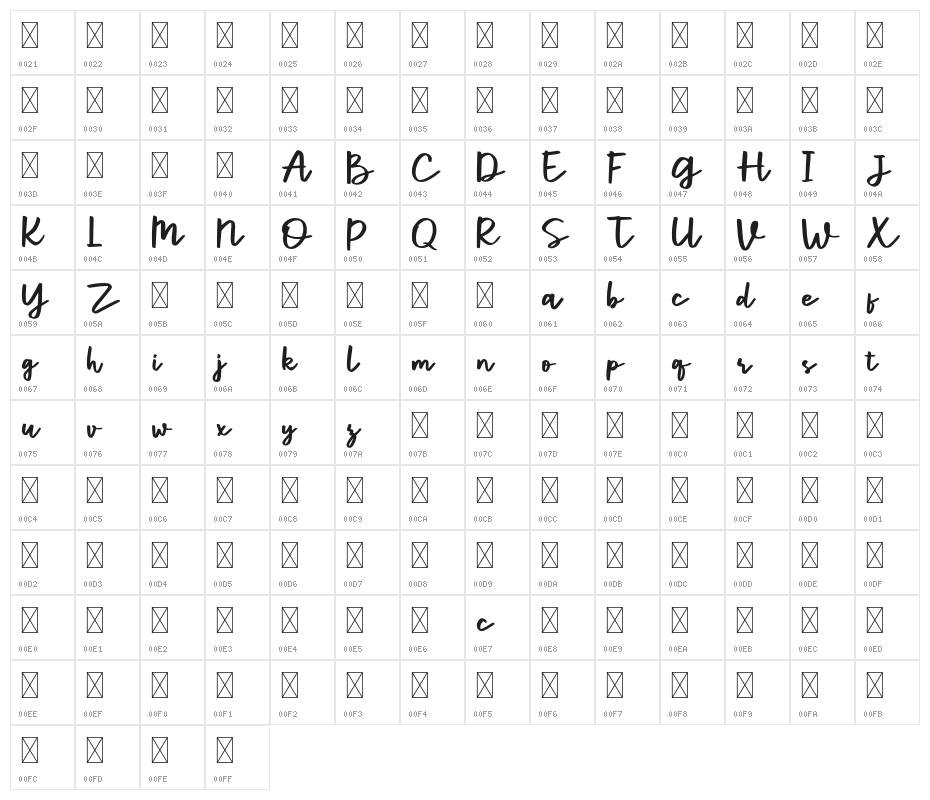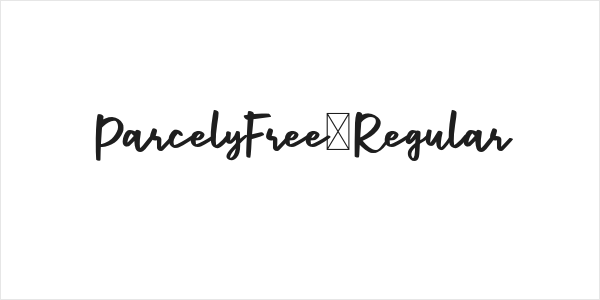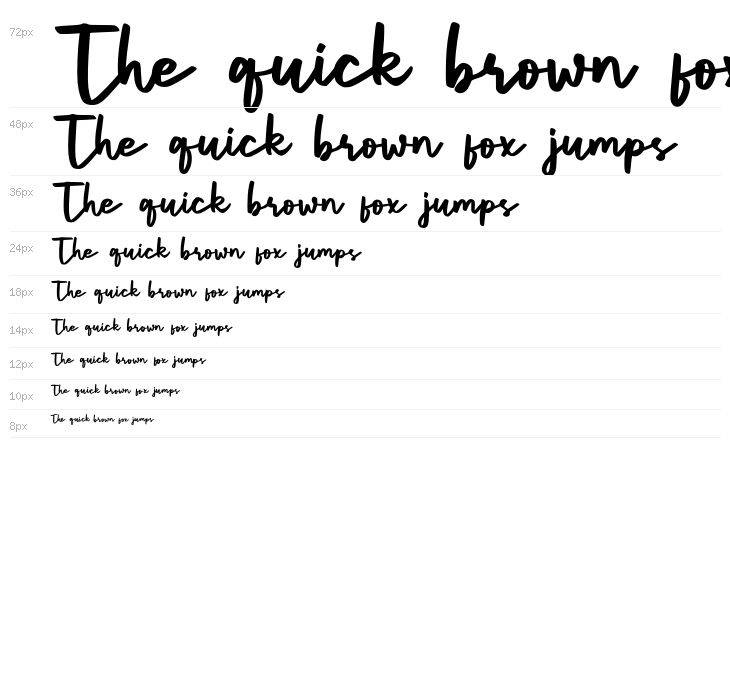
ParcelyFree-Regular Font
ParcelyFree-Regular Description
This font features a lively and dynamic script style, characterized by its fluid and connected letterforms. The uppercase letters exhibit a playful yet elegant flair, with strokes that vary in thickness, adding a sense of movement and energy. The lowercase letters maintain a consistent flow, enhancing readability while retaining a handcrafted appearance. The overall look is casual yet sophisticated, making it suitable for a variety of creative applications. The font's design is well-suited for projects that require a personal touch, such as invitations, greeting cards, and branding materials.
| Proposed Projects | Ideal for invitations, greeting cards, branding, and creative projects requiring a personal touch. |